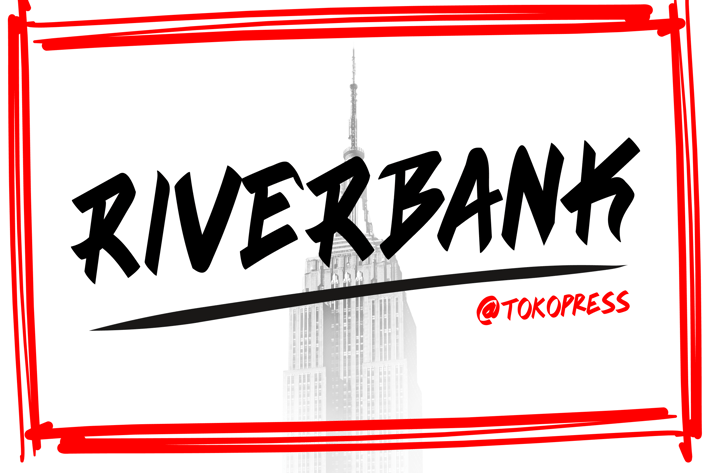
RIVERBANK - - Aggressive graffiti font
Riverbank - Aggressive Graffiti Font
RIVERBANK is a high-energy brush script designed for creators who want their message to shout, not whisper. With aggressive brush strokes, expressive angles, and loud movement, this font captures the spirit of graffiti and urban culture—perfect for streetwear, music branding, and extreme sports designs.
Its hand-drawn strokes deliver an unpolished, defiant vibe with jagged terminals and rough, spontaneous flow. Think urban rebellion meets controlled chaos, ideal for modern digital or print campaigns that need attention-grabbing power.
From edgy YouTube thumbnails to punk band posters, RIVERBANK is built to dominate high-impact visual spaces. Perfect for street culture campaigns, vinyl album covers, motivational slogans, or skateboard brands, this font commands attention with every stroke. If your audience craves energy, movement, and authenticity, RIVERBANK speaks their language—loudly.
Great for creators designing for energetic markets like sportswear, youth marketing, or underground events where expression is everything.
Graffiti-Influenced Energy: Emulates authentic spray-paint lettering and street brushwork
Dynamic Flow: Bouncy, fast-paced rhythm adds motion and grit to every character
High-Contrast Impact: Bold strokes with expressive edges make titles unforgettable
Urban Vibe: Perfect for edgy apparel, streetwear campaigns, rap album covers, and festival posters
* Fully Handcrafted: Gives your designs a raw, unfiltered, human feel that stands out in digital spaces